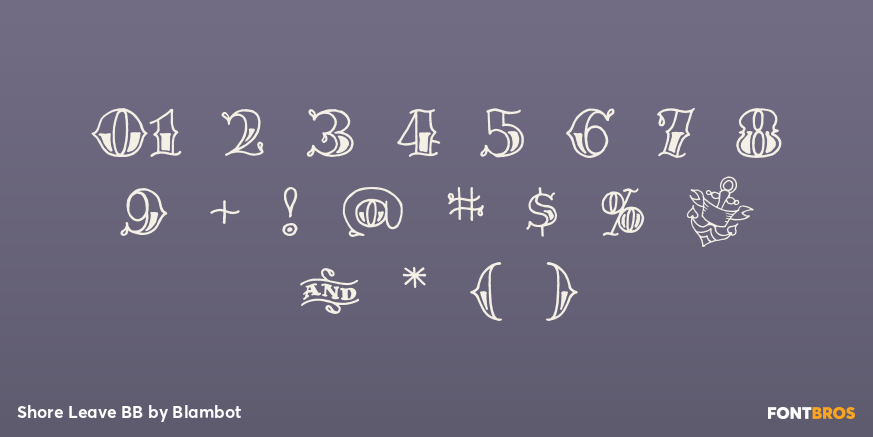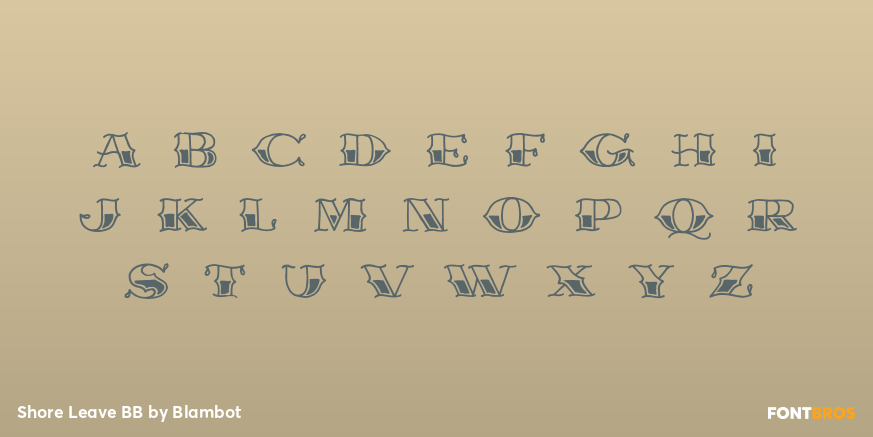
Shore Leave BB
Font Family by Blambot
Shore Leave was inspired by classic sailor tattoos of yesteryear and hand-drawn for that aged-look by Nate Piekos.
Included is Shore Leave Deco and Shore Leave Hollow. Each contains six different swashes and sailor tattoo icons (A swallow, an anchor, and a heart) accessible with the key map .pdf file that is included.
Both fonts have a hefty compliment of European characters.